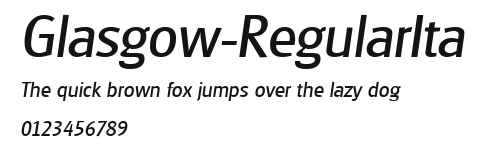
Glasgow-RegularIta Preview
• Font Name: Glasgow-RegularIta
• Full Font Name: Glasgow-RegularIta
• PostScript Name: Glasgow-RegularIta
About Glasgow-RegularIta.ttf
Glasgow-RegularIta.ttf is a modern, elegant sans-serif font designed for ultimate readability and visual harmony. Perfect for branding, headlines, web design, and print materials.